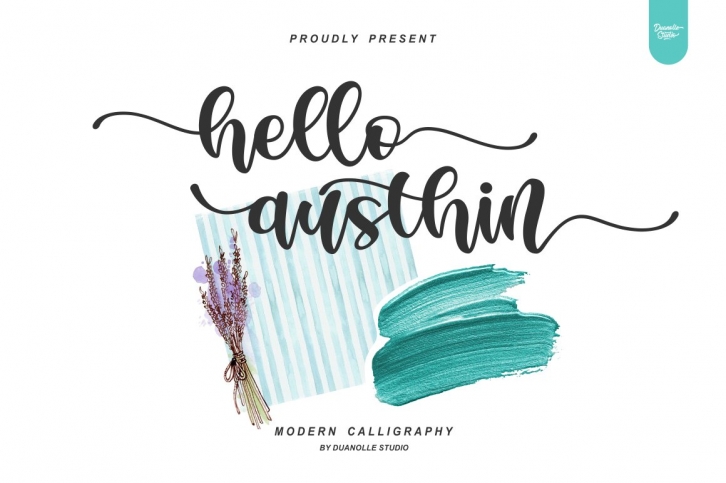
Hello Austhin is a beautiful font that was designed by Duanolle Studio. It's a great choice for designers and creatives who need such a font. It was released on January 24, 2021 and the file size is 18.95 MB. Hello Austhin may give a more youthful, expressive and casual look to your project. It is a very beautiful, refined, elegant, and high-quality font.